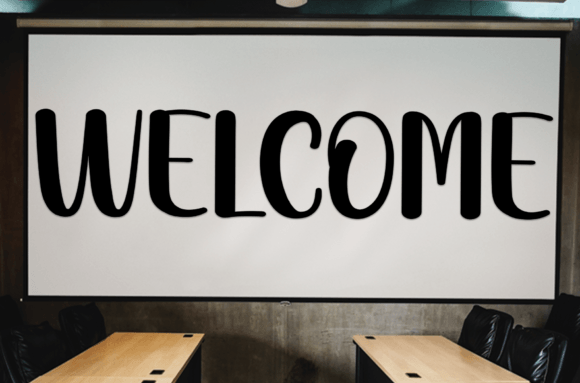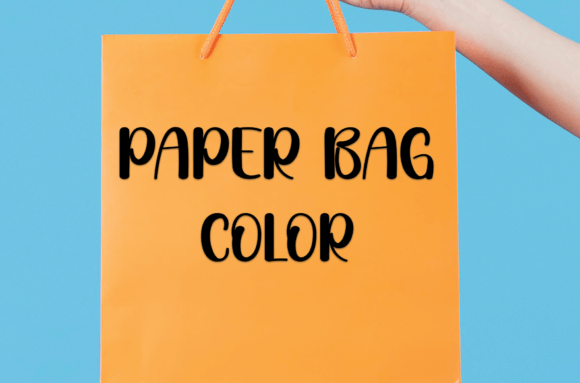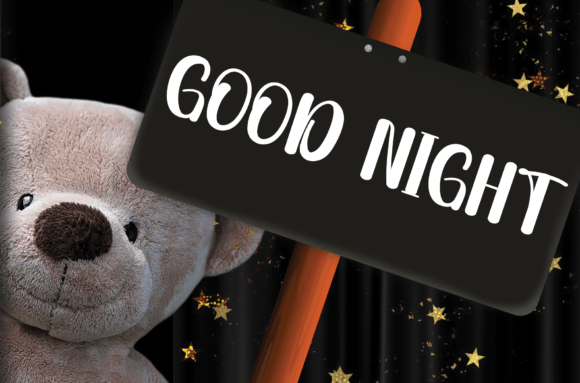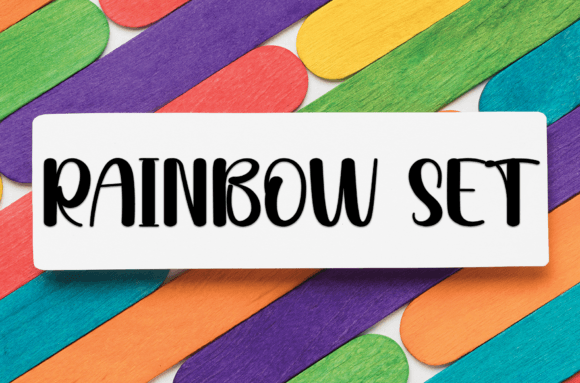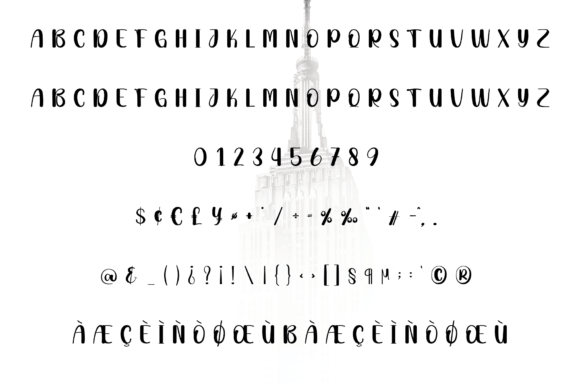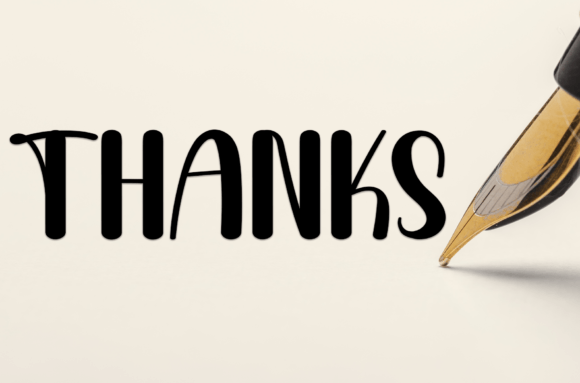
Introducing Airy Font: The Sweet and Friendly Handwritten Font for Your Design Needs
Are you looking for a font that can add a touch of warmth and personality to your designs? Look no further than Airy Font, a sweet and friendly handwritten font that’s perfect for a variety of creative projects. In this article, we’ll take a closer look at Airy Font, its features, and how you can use it to elevate your designs.
What is Airy Font?
Airy Font is a beautiful, handwritten font that’s designed to bring a sense of fun and relaxation to your designs. With its smooth, flowing lines and playful feel, Airy Font is ideal for creating wedding invitations, greeting cards, and other designs that require a personal touch. Whether you’re a designer, crafter, or DIY enthusiast, Airy Font is a versatile and charming font that can help you create stunning visuals.
Key Features of Airy Font
So, what makes Airy Font so special? Here are some of its key features:
- Sweet and Friendly Design: Airy Font has a warm and inviting design that’s perfect for creating designs that require a personal touch.
- Handwritten Style: With its handwritten style, Airy Font adds a touch of authenticity and personality to your designs.
- Fun and Relaxed: Airy Font has a playful feel that’s perfect for creating designs that require a lighthearted and carefree approach.
- Highly Versatile: Airy Font can be used for a variety of design projects, from wedding invitations and greeting cards to blog posts and social media graphics.
Uses for Airy Font
Airy Font is a versatile font that can be used for a wide range of design projects. Here are some ideas to get you started:
- Wedding Invitations: Airy Font is perfect for creating beautiful and elegant wedding invitations that set the tone for a special day.
- Greeting Cards: With its friendly and approachable design, Airy Font is ideal for creating greeting cards for birthdays, holidays, and other special occasions.
- Blog Posts: Airy Font can add a touch of personality to your blog posts and make them more engaging and readable.
- Social Media Graphics: Use Airy Font to create eye-catching social media graphics that showcase your brand’s personality and style.
- Crafting Projects: Airy Font is perfect for crafters who want to add a personal touch to their projects, such as scrapbooking, journaling, and card making.
Tips for Using Airy Font
Here are some tips for using Airy Font in your designs:
- Pair with Other Fonts: Airy Font pairs well with other fonts, such as serif and sans-serif fonts, to create a visually appealing design.
- Use for Headings and Body Text: Airy Font can be used for both headings and body text, making it a versatile font for a variety of design projects.
- Experiment with Colors: Airy Font looks great in a variety of colors, so don’t be afraid to experiment and find the perfect color scheme for your design.
Airy Font is a sweet and friendly handwritten font that’s perfect for designers, crafters, and DIY enthusiasts who want to add a personal touch to their designs. With its smooth, flowing lines and playful feel, Airy Font is ideal for creating wedding invitations, greeting cards, and other designs that require a lovely touch. Whether you’re looking for a font for a specific project or want to add some personality to your designs, Airy Font is a great choice.